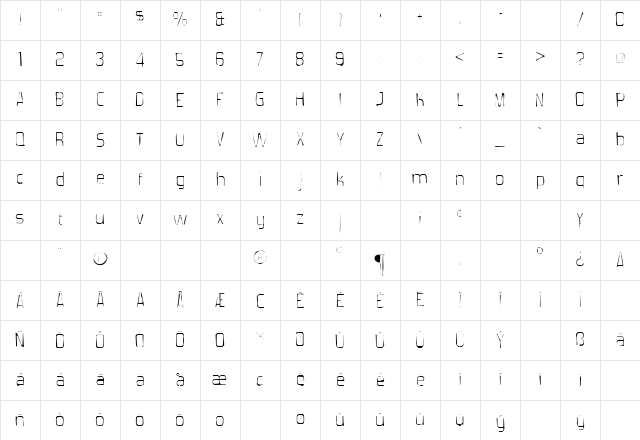
Forgotten Futurist Gaunt Regular
Designer: Ray Larabie
Design Context for Forgotten Futurist Gaunt
Forgotten Futurist Gaunt has a distinctly futuristic character, with geometric precision and clean angles that feel at home in technology, gaming, and sci-fi contexts.
Ideal for esports teams, cyberpunk aesthetics, fintech brands, and anything that needs to feel forward-looking.
Font Pairing: Pairs well with a humanist sans-serif for body copy - the contrast between mechanical precision and organic warmth creates a compelling typographic dynamic.
Pro Tip: Try Forgotten Futurist Gaunt with generous letter-spacing in UI labels and navigation - the geometric forms benefit from room to breathe.